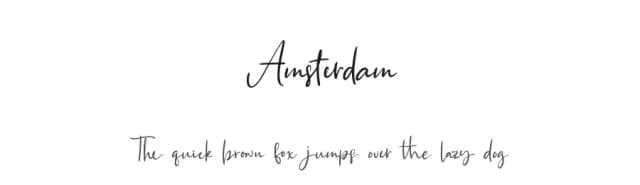
About Cute Lettering Font
Cute Lettering is a beautiful, modern script font make this font looks natural, elegant, and perfect for any awesome projects.
Cute Lettering Specifications
| Font Family | Cute Lettering |
| Full Name | Cute Lettering |
| Glyph Count | 208 glyphs |
| PostScript Name | CuteLettering |
| Designer | Anggara Anindita Glaasebw |
Cute Lettering supports 202 languages.
Cute Lettering Font is a script font that shines as a display or heading face. Pair it with a clean sans-serif or serif font for body text β the contrast creates a clear hierarchy while the two styles stay balanced and easy to read.